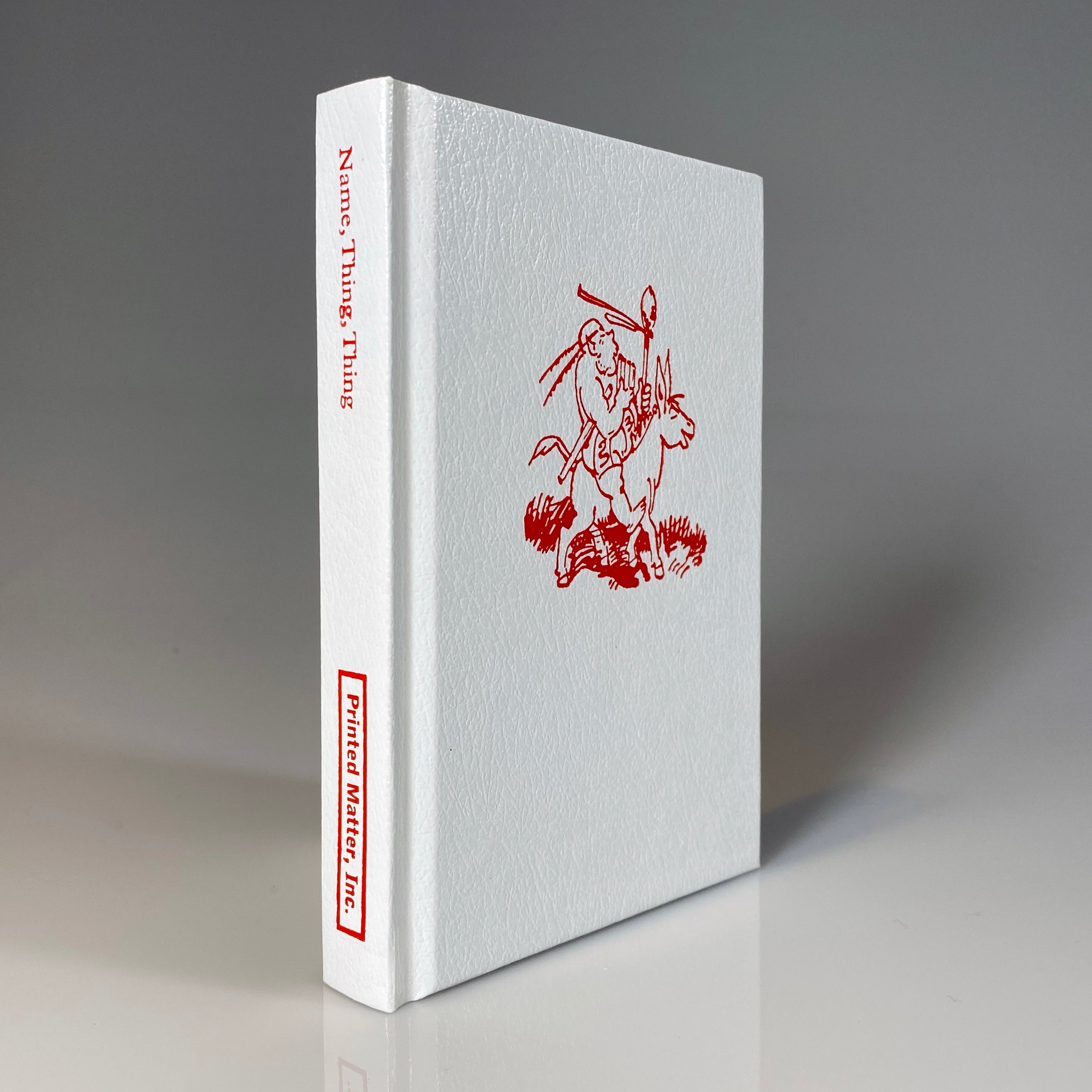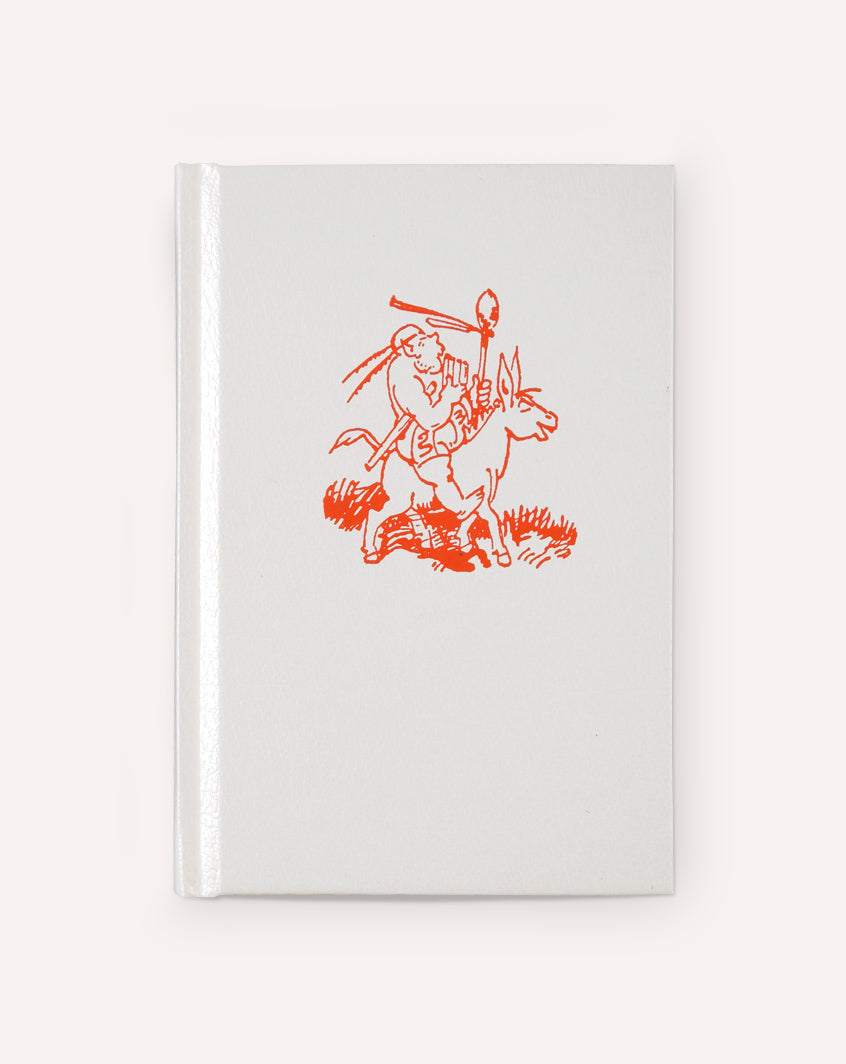
Name, Thing, Thing: A Primer in Parallel Typographies
A compilation of thoughts, quotations, fragments, on and around typographic intervention as resistance against the colonial embeds of typographic tradition—a pursuit analogous to strategies long used by people of color to subvert or reclaim defined historical narratives and traditions as a means of survival.
Cultural remapping, hybrid and subversive form-making and discursive histories are tactics explored in Name, Thing, Thing to locate potential channels of articulation in decolonizing typography.
Part One (Letters Are Things) is a performative text drawing from numerous theoretical sources across design criticism and cultural history. Progressing through numbered and lettered sections, the essay attempts to cobble together what a methodology that actively combats typography’s inherent homogenization of language and form might look like.
Part Two (Things) borrows images from various books, artifacts, artworks, etc. to locate an expressive language, one often incorporating physical gesture—posture, gesticulation, facial expression—in the space around language, symbol, and relic.
Part Three (Things Cited) attributes the images and text.